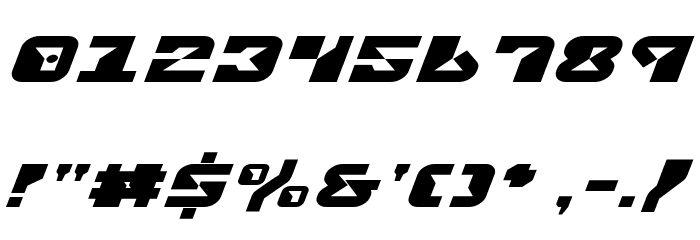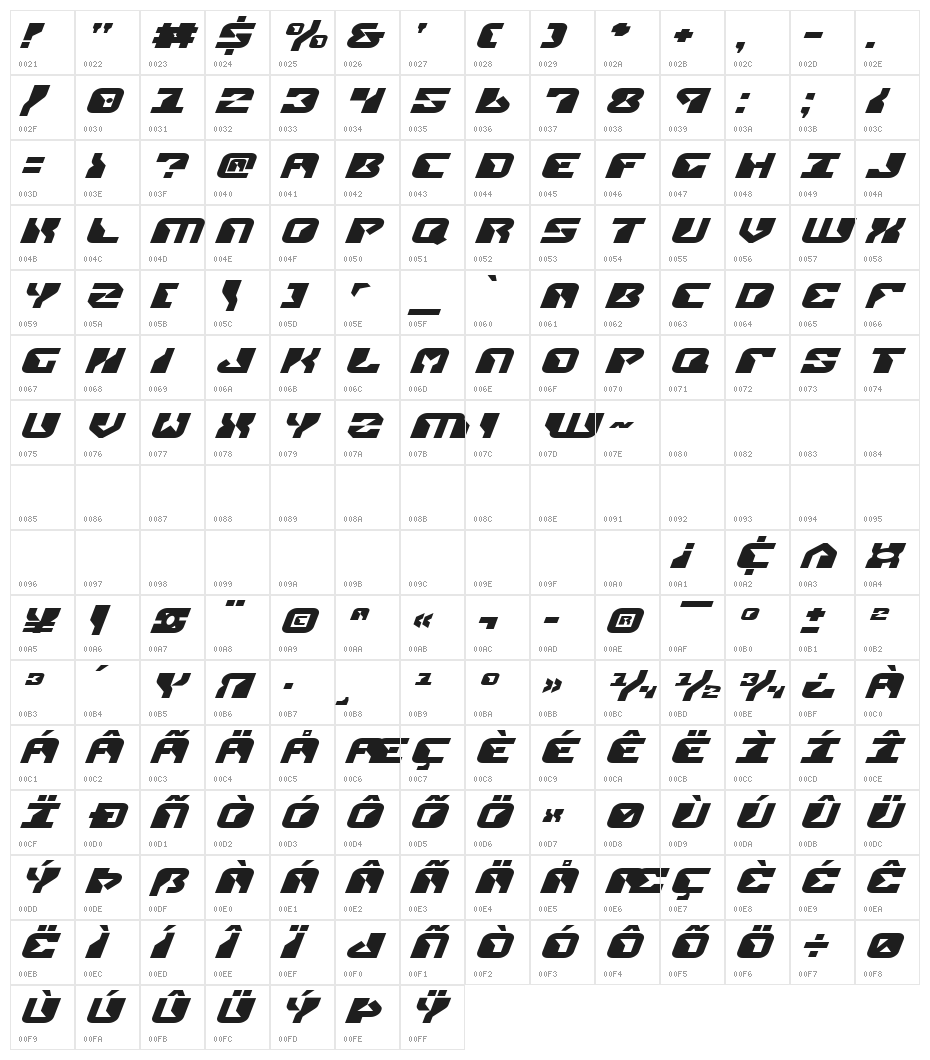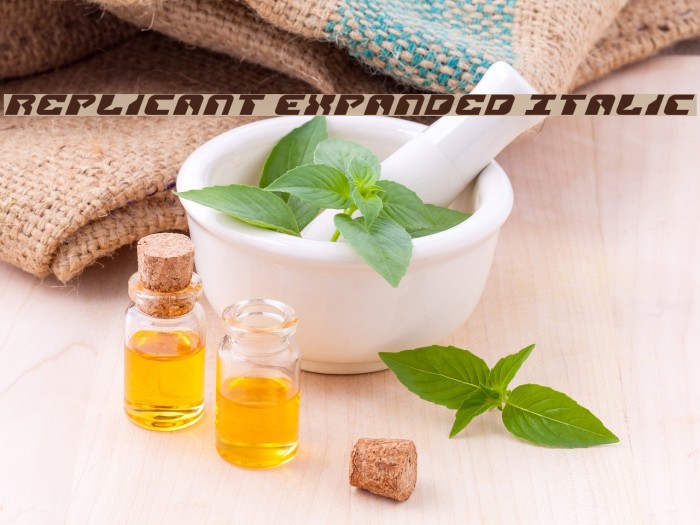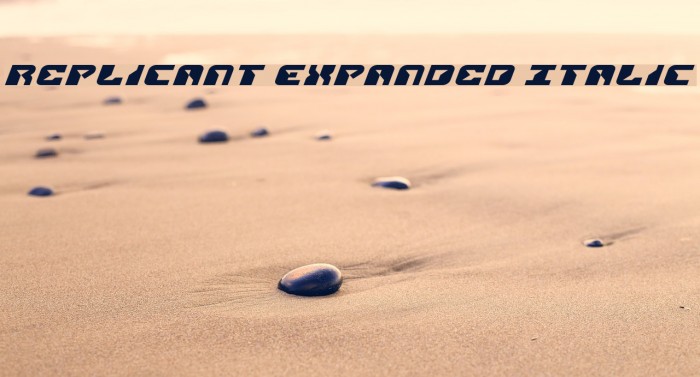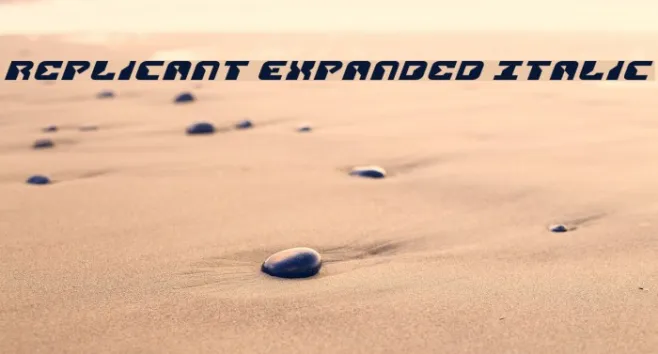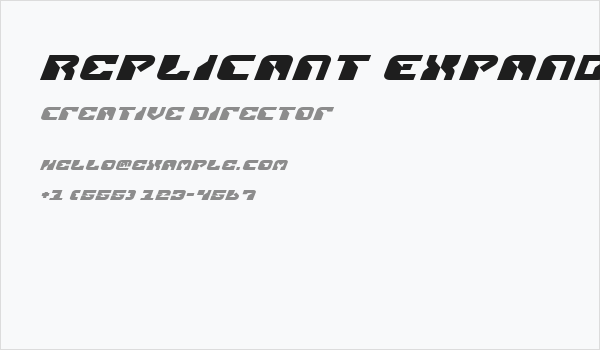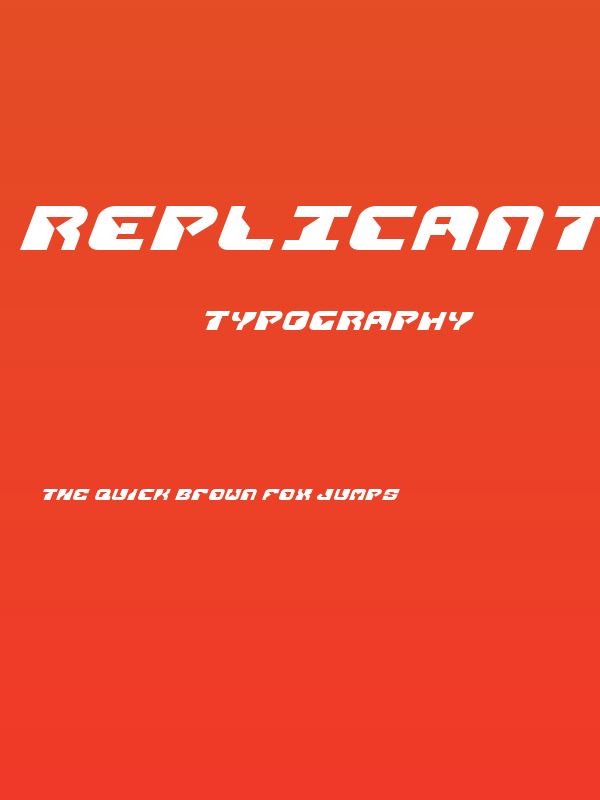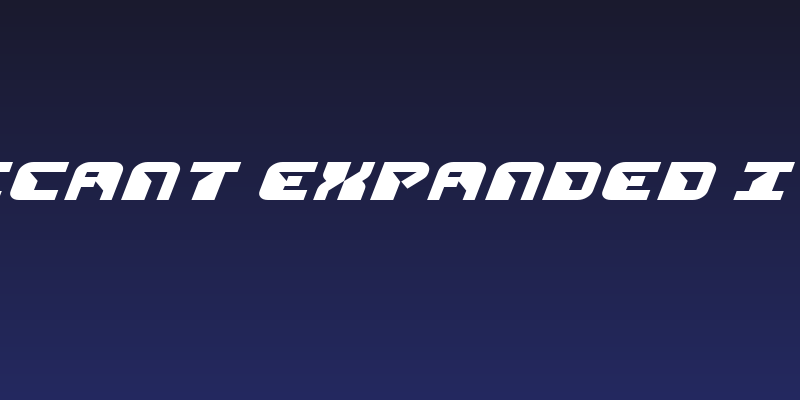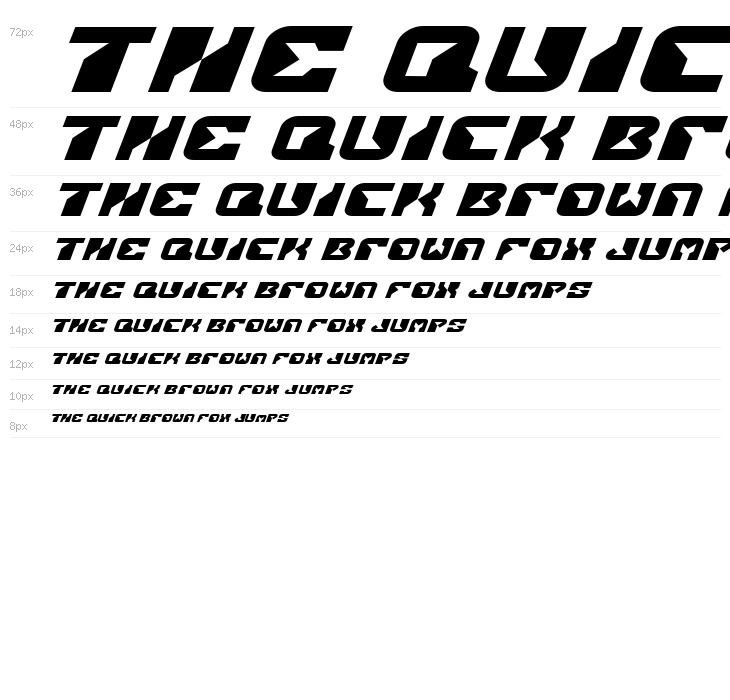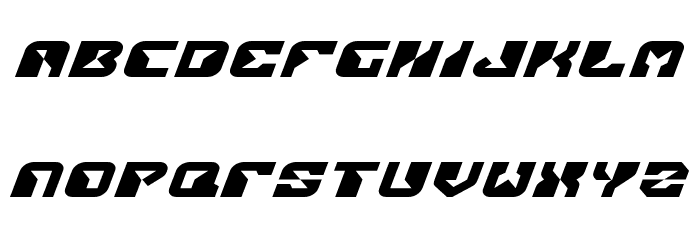
Replicant Expanded Italic Font
Replicant Expanded Italic Description
This font features a futuristic and angular design, characterized by its bold and italicized style. The characters exhibit a unique geometric structure with sharp edges and slanted forms, creating a dynamic and energetic appearance. The expanded width of the font adds to its boldness, making it stand out prominently. The uppercase and lowercase letters maintain a consistent style, with the lowercase mirroring the uppercase in form but slightly reduced in size. Numbers and special characters follow the same angular and bold design, ensuring uniformity across all glyphs. This font's modern and edgy aesthetic makes it suitable for projects that require a strong visual impact.